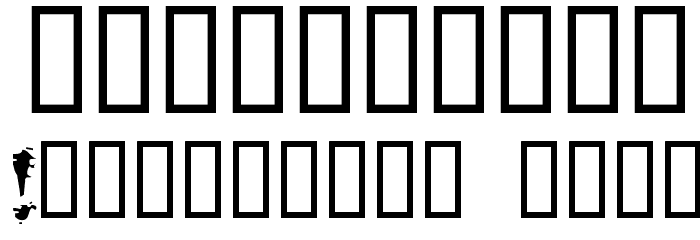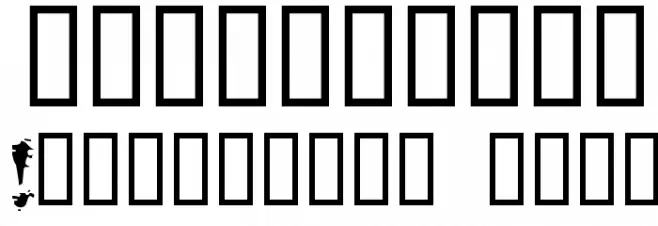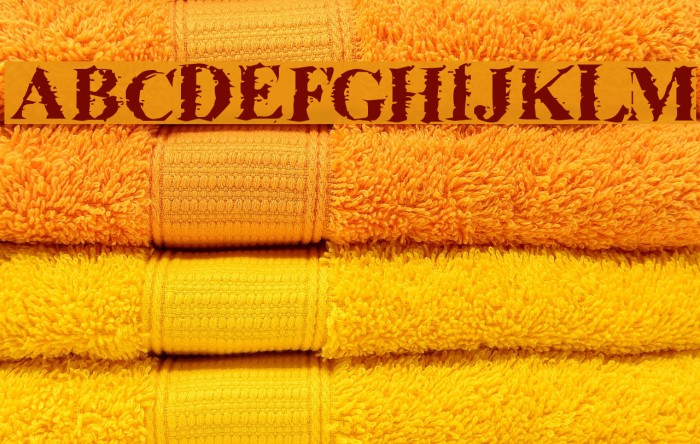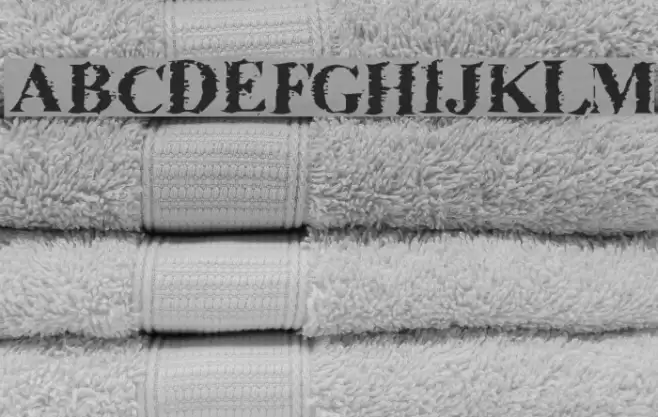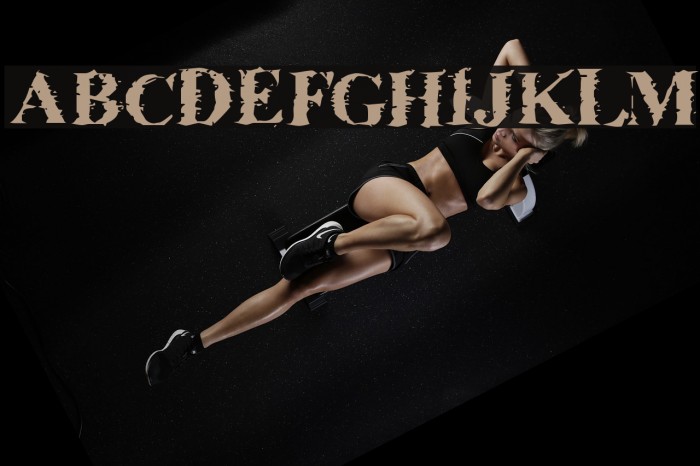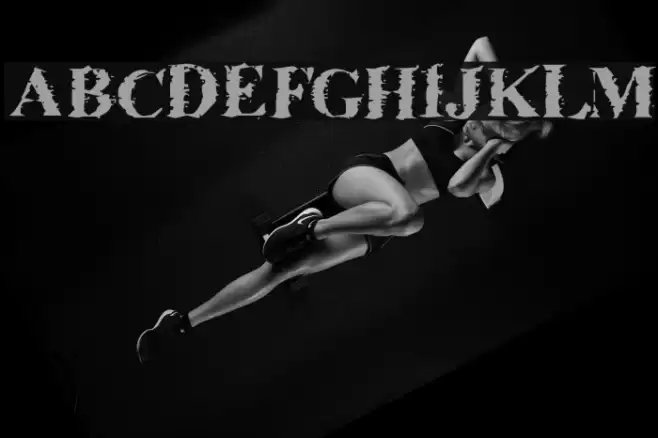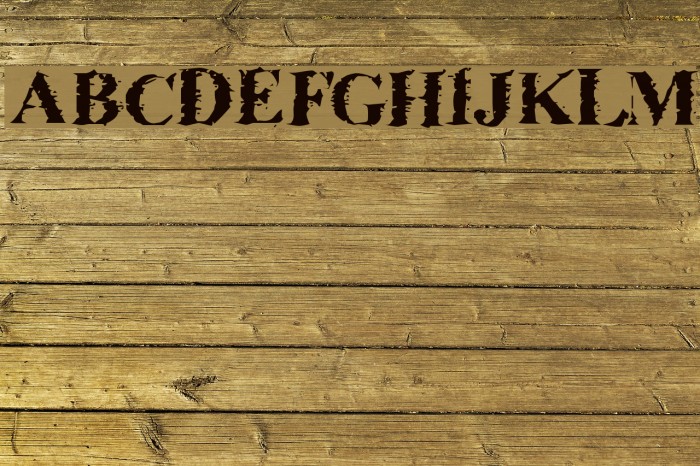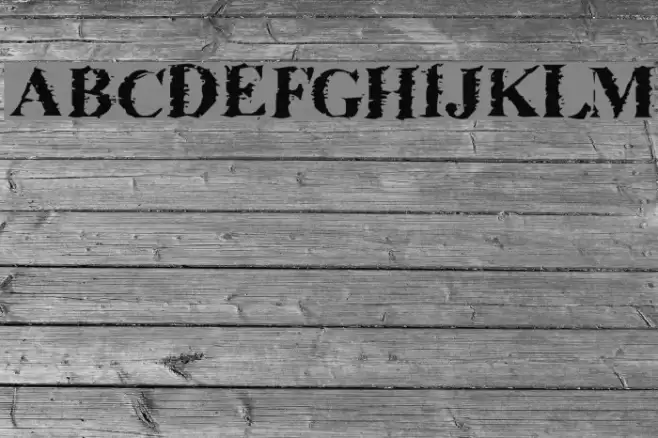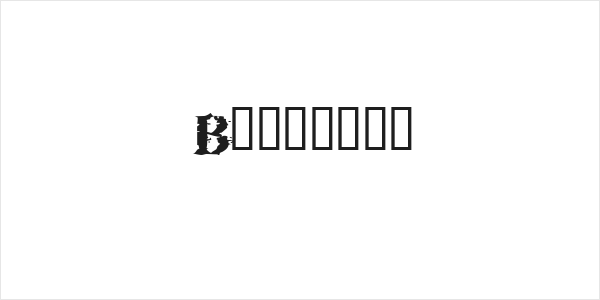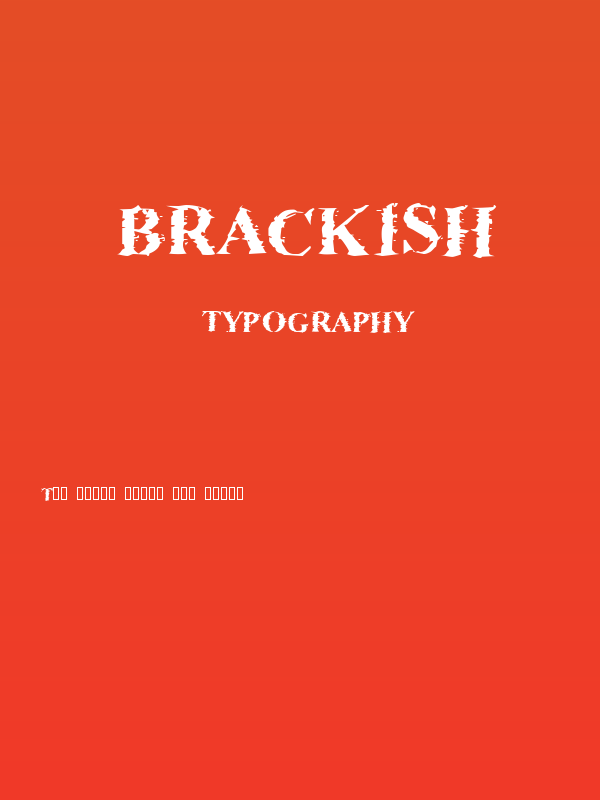
Brackish Font
Brackish Description
This font features a rugged, distressed style with jagged edges and an uneven texture, giving it a weathered and organic appearance. The uppercase letters are bold and impactful, making them suitable for attention-grabbing designs. The font's unique texture suggests a sense of movement and energy, reminiscent of natural elements like wind or water. It lacks lowercase letters and numbers, focusing solely on uppercase characters and a limited set of special symbols. This font is ideal for projects that require a raw, edgy aesthetic.
| Proposed Projects | Perfect for album covers, posters, or any design needing a gritty, organic look. |